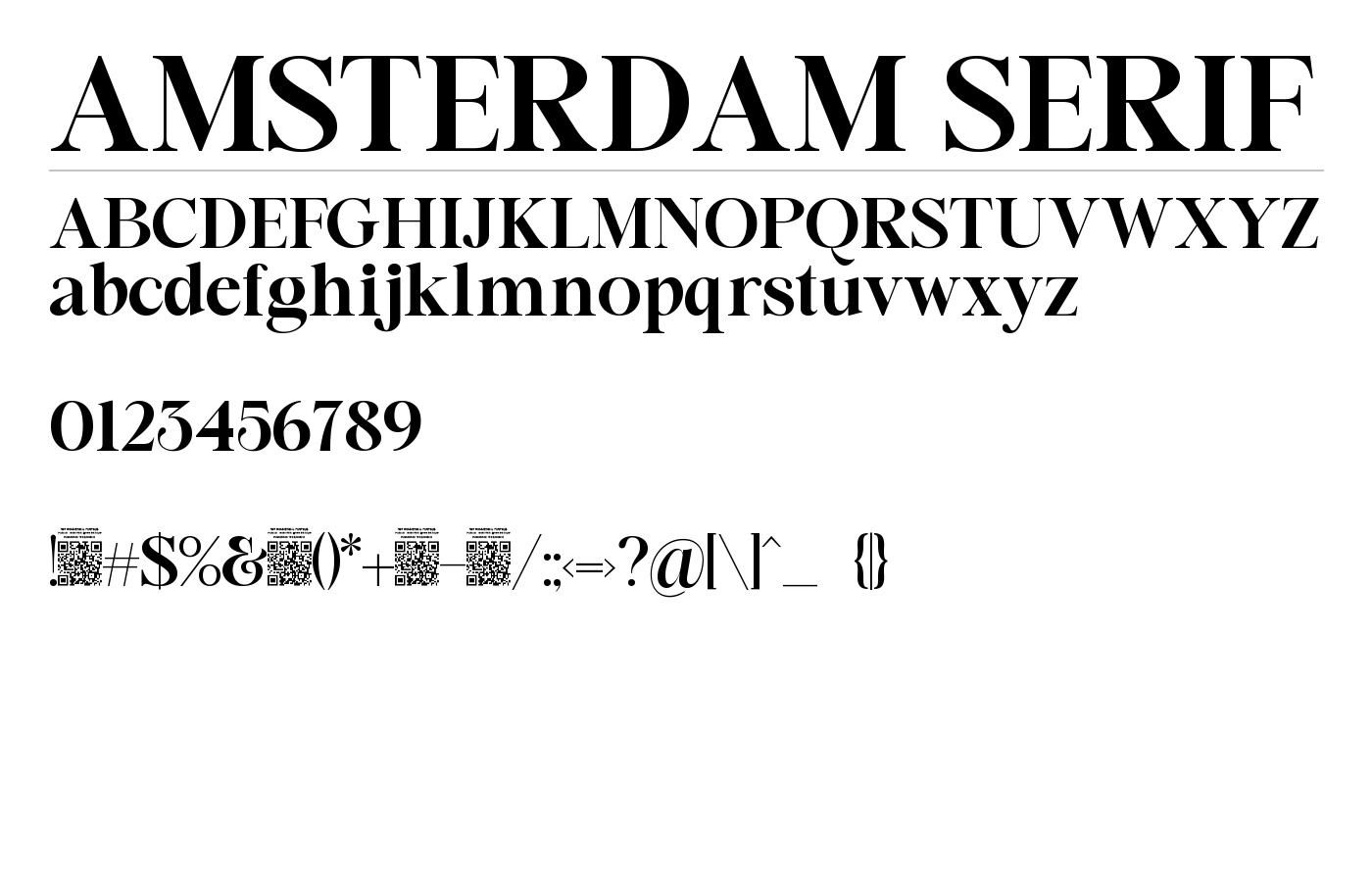
Amsterdam Serif is a classic serif typeface with a refined and elegant character, featuring strong contrast between thick and thin strokes. Its sharp, bracketed serifs and balanced proportions give it a timeless and sophisticated feel, making it ideal for fashion branding, editorial headlines, and luxury packaging. This font’s distinctive style combines tradition with a modern edge, perfect for designs seeking a touch of prestige and formality.
AMSTERDAM SERIF Font
About AMSTERDAM SERIF Font
| Font family | AMSTERDAM SERIF Font |
| Designer | Sirojuddin |